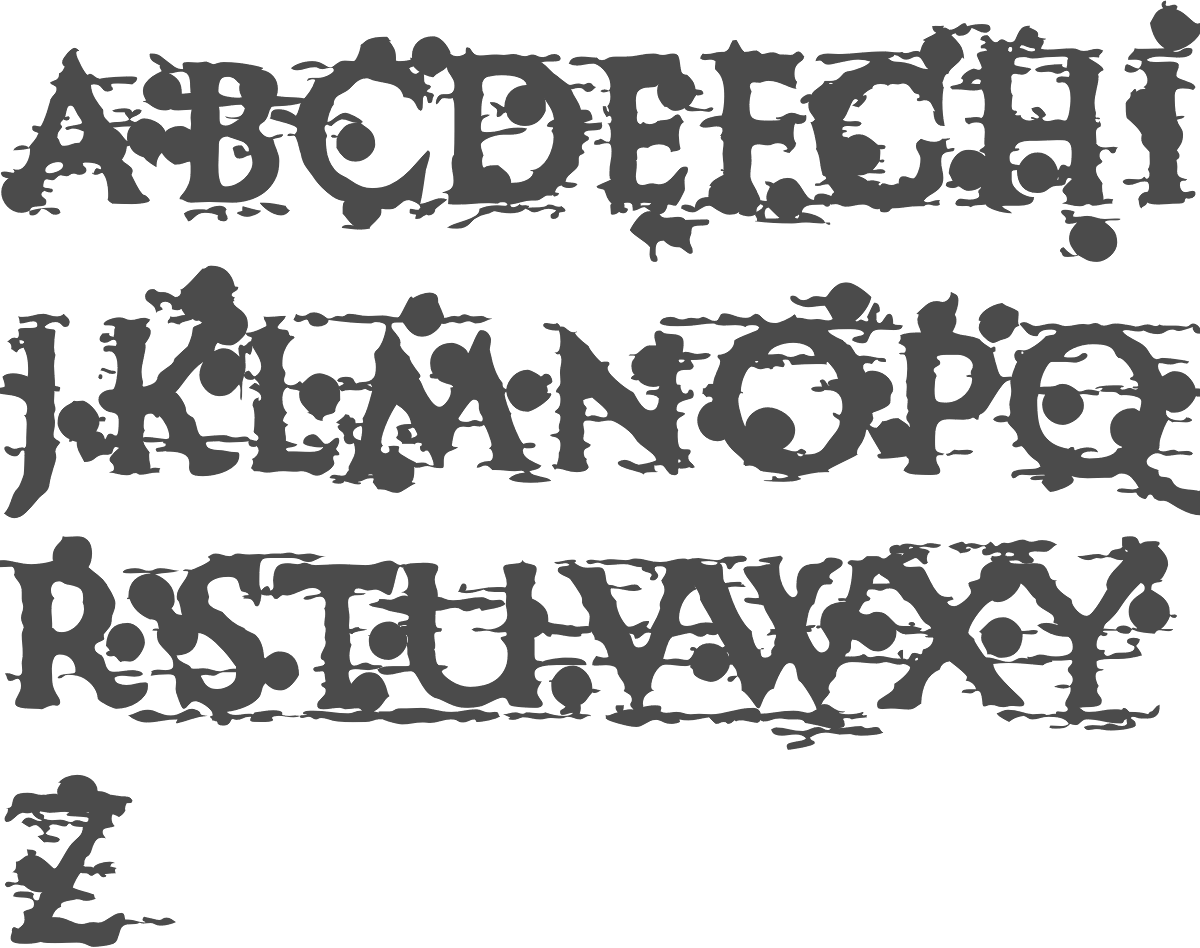
Western Rustic Fonts. Palo santo, a premium western font. Joyride extended typeface by type juice;
The huge font bundle (98% off) by salt & pepper designs Try pairing it with a variety of rustic textures. Distorted eroded western grunge lettering wild west eroded distorted faded distressed cowboys.
Inspired by the traditional western fonts, addison is a modern, letterpress style typeface featuring a distressed, rustic, and heavy texture that can be used for projects looking for a more contemporary western looking style of lettering. Take an ornate, rustic look even further with this farmhouse font. You can simply drag the fonts into the window that shows up to install them.
This western aesthetic could pair really well with other farmhouse fonts. Consider a rustic font when you want to elicit a feeling of country comfort or harken back to an idyllic time, preferably one that's outdoors. A gold standard in rustic wedding fonts!
Palo santo, a premium western font. Download soca western rustic font. The rustic is a beautiful rustic script font, mixed with a modern touch of character.
Joyride extended typeface by type juice; Every font is free to download! The font family cowboy western created by michael hagemann is a typical western style font based on an old slab serif font from the late 1800s.